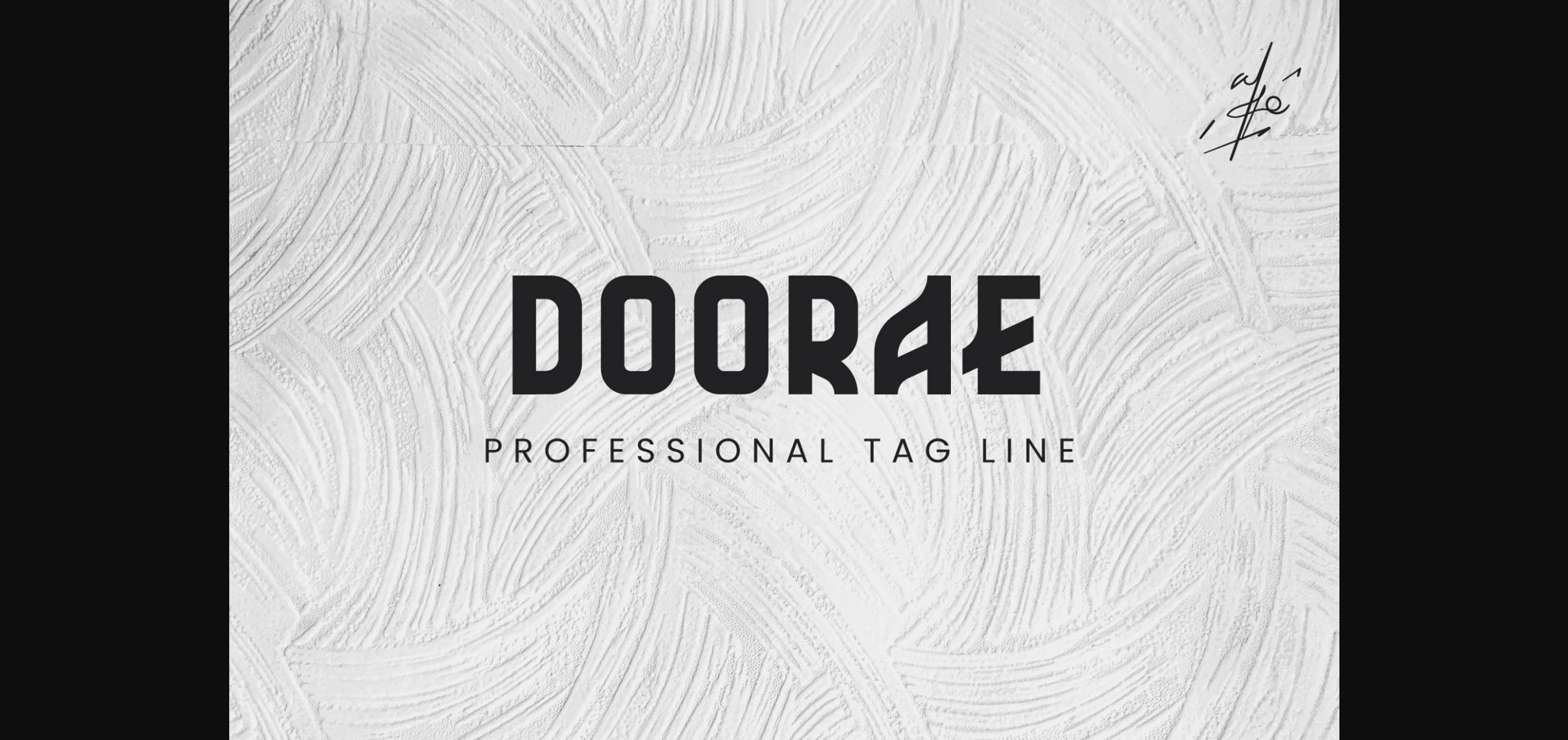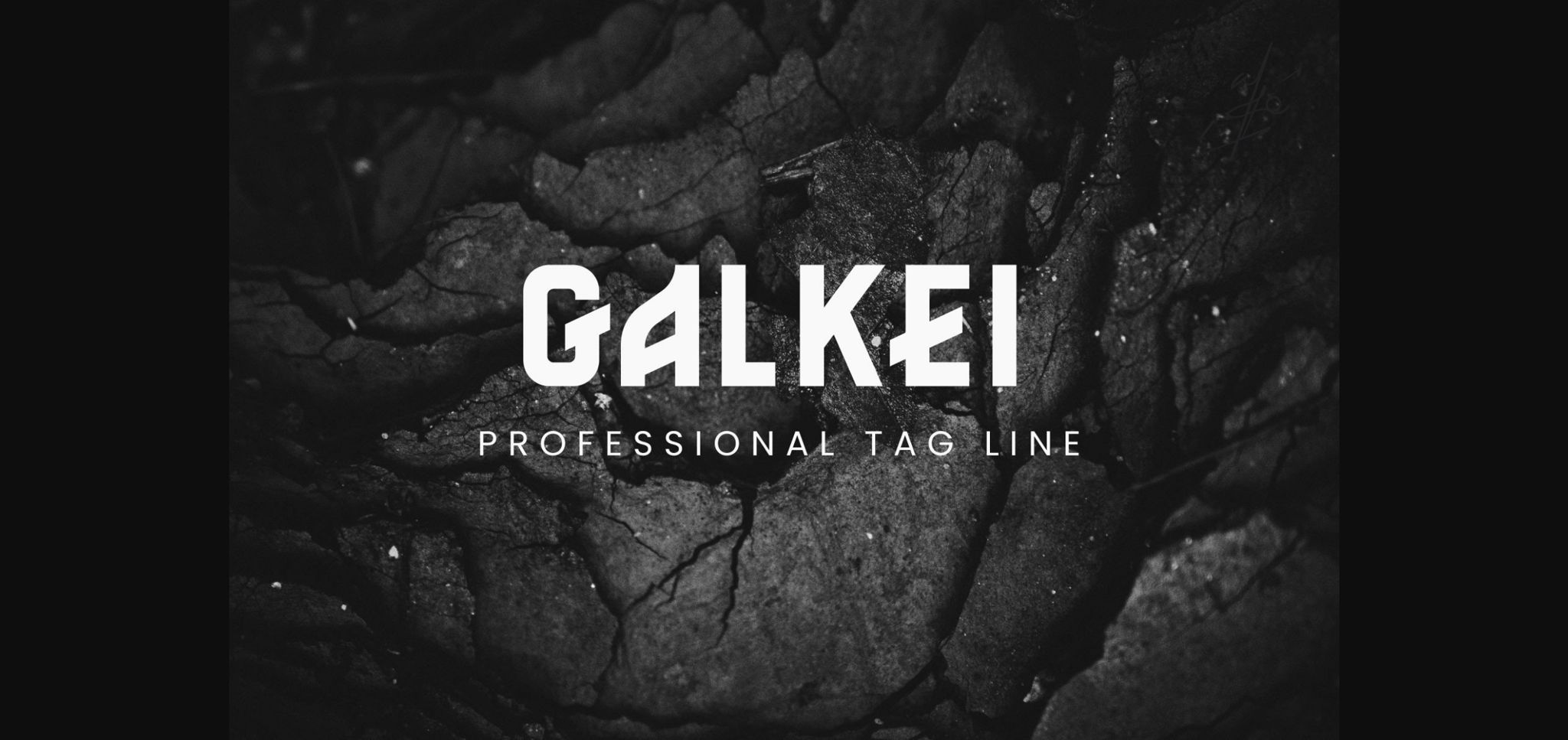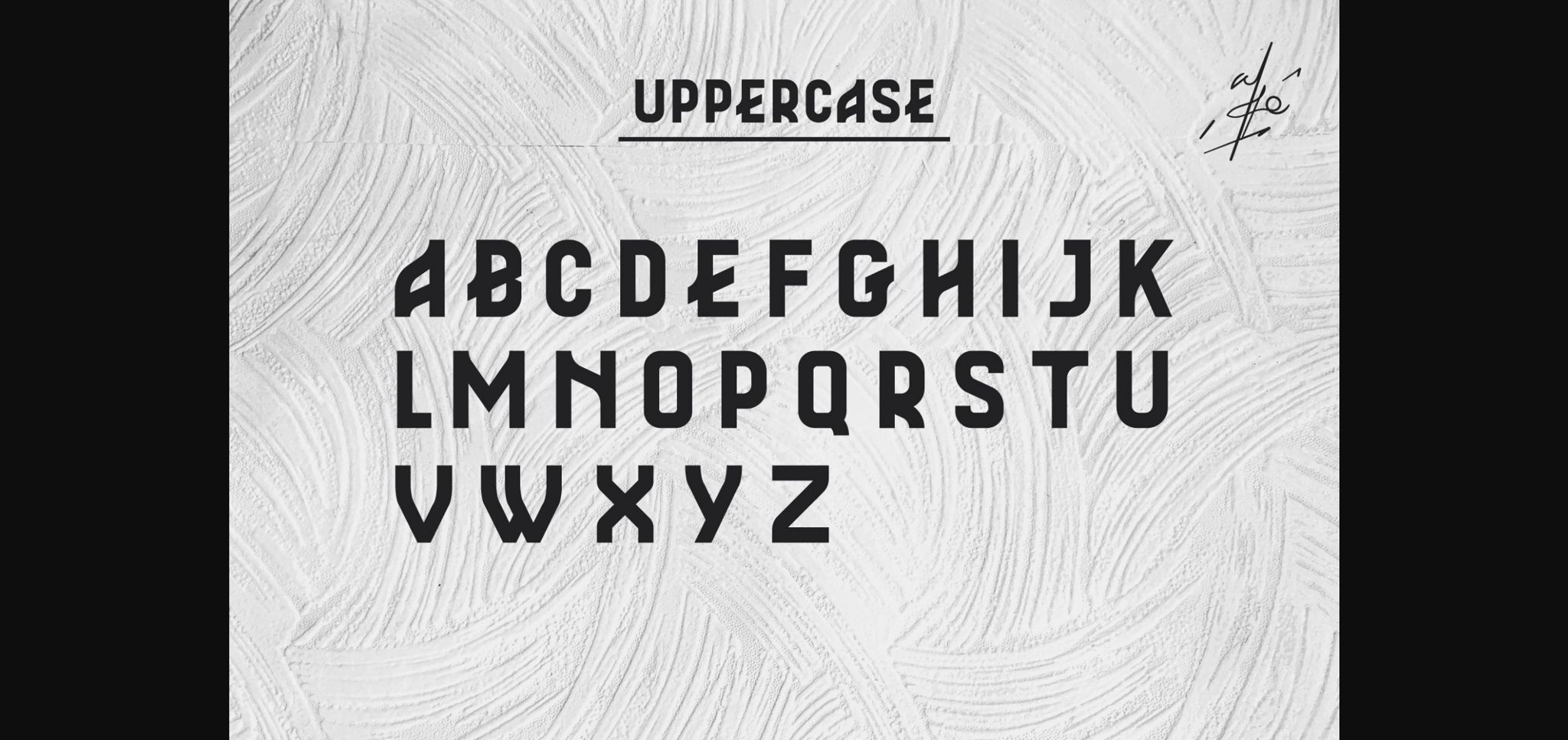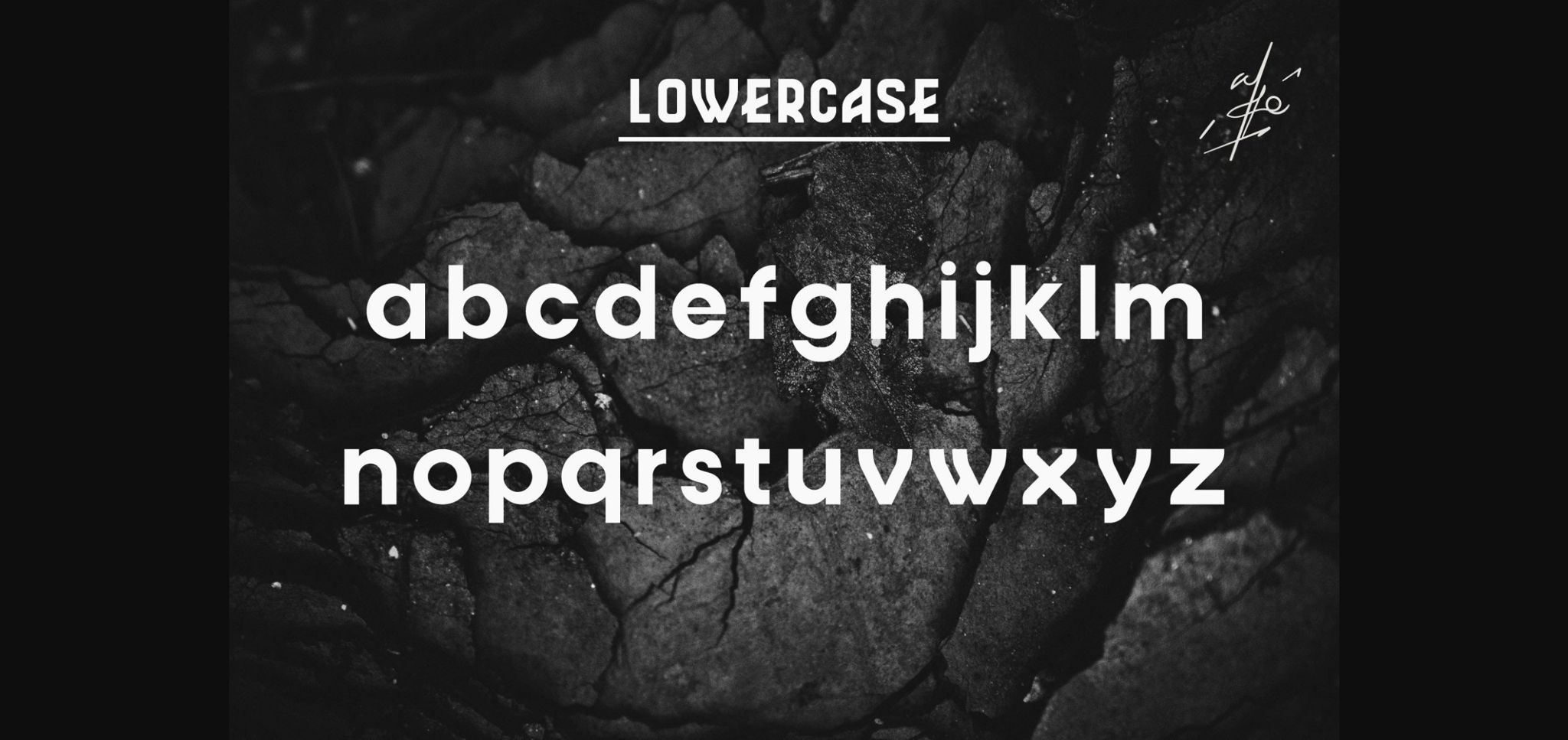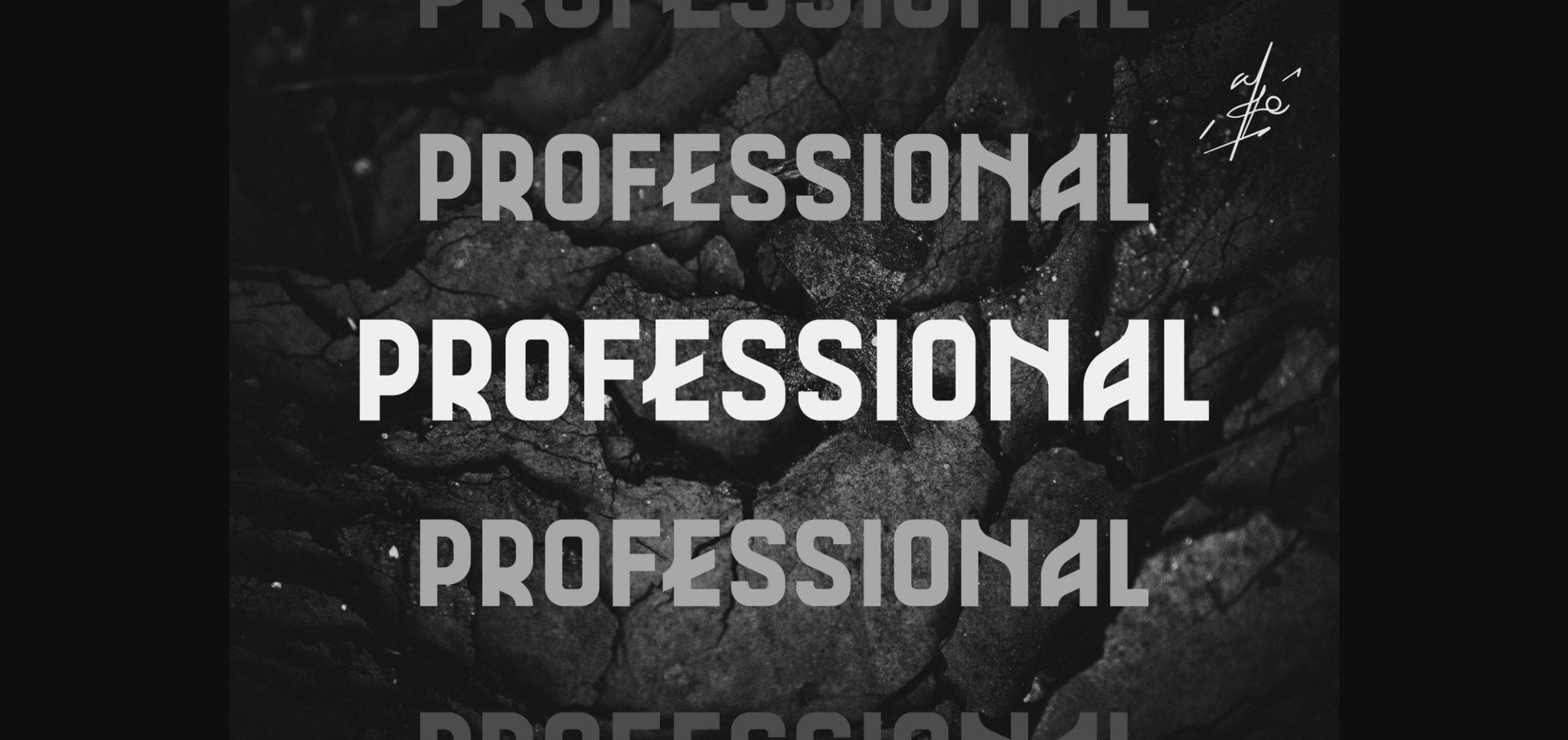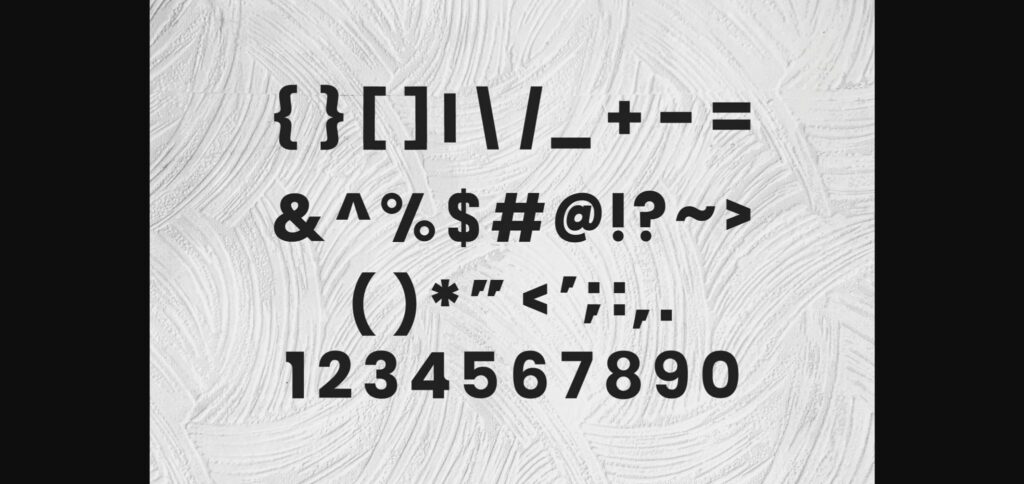
Doorae Font
About Doorae Font
Doorae is a custom sans-serif font for your professional logo and branding, you can use it for projects that require bold and strong titles. Each character is designed for a good logo, not suitable for use with a combination of upper and lower case letters.